Looking for the “MAGA font for your design”? While there isn’t one single official “MAGA” font, the iconic look is often associated with bold, classic serifs, strong sans-serifs, or prominent display typefaces that convey a sense of tradition and strength. This guide will help you explore these styles for your powerful design needs.
Choosing the right font can feel like picking the perfect outfit for an important event. You want it to make a statement, be easy to read, and reflect the message you’re sending. Sometimes, people look for a specific font to capture a particular political or patriotic sentiment, often searching for the “MAGA font for your design.” It’s a common quest, especially when aiming for designs that feel bold, traditional, and impactful. If you’ve been wondering what fonts evoke that familiar, strong aesthetic, you’re in the right place!
This guide is here to demystify that quest. We’ll explore typography that often gets associated with this style, covering why certain fonts work and how you can use them effectively in your own projects. No confusing jargon, just simple steps to help you find fonts that resonate. Let’s dive in and discover how to bring that impactful feel to your designs!
Understanding the “MAGA Font” Vibe
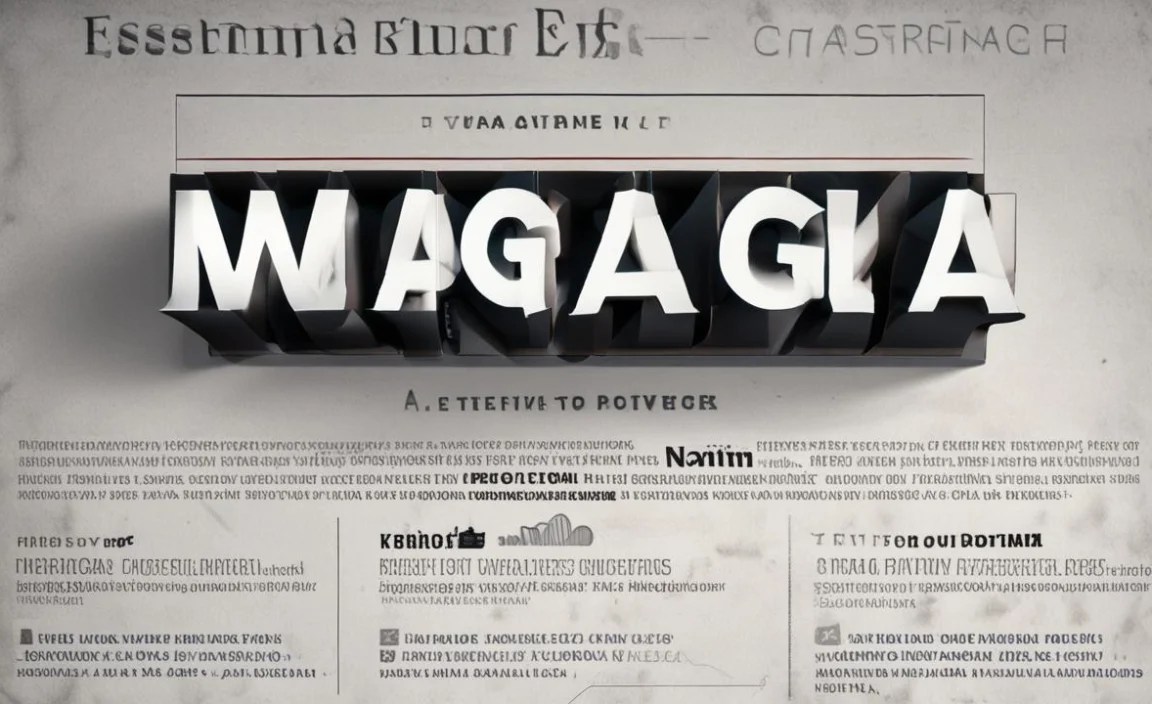
When people search for the “MAGA font for your design,” they’re usually looking for typefaces that communicate a specific feeling. This feeling often involves a sense of strength, tradition, and straightforwardness. Think about historical documents, powerful branding, and clear messaging – these are the visual cues that often come to mind.
Historically, American patriotic and political messaging has often leaned on fonts that appear sturdy and dependable. This doesn’t mean there’s a single, officially endorsed typeface. Instead, it’s about a collective impression created by a few common font characteristics. These characteristics usually include strong letterforms, excellent readability, and a classic appeal that doesn’t feel overly trendy.
The goal is to find fonts that can stand on their own, be easily grasped by a wide audience, and convey a serious or bold message without being overly decorative or fussy. We’ll break down the types of fonts that fit this bill and how you can use them.
Key Characteristics of Fonts Evoking a “MAGA” Aesthetic
While there isn’t a single “MAGA font,” certain typographic styles are frequently used in designs that share a similar spirit. Understanding these characteristics can help you select the right fonts for your needs. These fonts often blend tradition with a robust presence.
1. Bold Serif Fonts
Serif fonts have small decorative strokes, or “feet,” at the ends of letters. When these serifs are bold and the overall weight of the font is strong, they can convey authority, tradition, and seriousness. Think of classic newspaper headlines or historical book printing.
- Why they work: Serifs add a sense of gravitas and heritage. Bold weights ensure they are highly visible and feel substantial.
- Examples: Fonts like Trajan Pro, Times New Roman (in bold), or even some classic slab serifs can evoke this feeling.
2. Strong Sans-Serif Fonts
Sans-serif fonts lack those decorative strokes, offering a cleaner, more modern, and often more direct look. When these fonts are in a bold weight, they become powerful and authoritative, cutting through the noise with clarity.
- Why they work: Their clean lines represent straightforwardness and modernity. Bold sans-serifs are excellent for headlines and calls to action, demanding attention.
- Examples: Impact, Arial Black, Bebas Neue, or Oswald are good examples of bold sans-serifs that are often used for impactful text.
3. Classic Display Fonts
Display fonts are designed for headlines and attention-grabbing text. They often have unique personalities but can still embody seriousness and strength if chosen carefully. For this aesthetic, display fonts might lean towards vintage styles or strong, geometric forms.
- Why they work: They are made to be noticed. A well-chosen, robust display font can create a memorable and strong visual identity.
- Examples: Vintage-inspired block lettering or strong, condensed display faces can fit this category.
4. Readability is Key
Regardless of style, the primary goal is that the message is understood clearly. Fonts that are easily readable at various sizes, especially for headlines and key statements, are crucial. This means avoiding overly complex scripts or thin, delicate fonts.
The fonts often associated with this “MAGA” aesthetic prioritize clarity and impact without sacrificing legibility. They aim to be perceived as trustworthy and substantial, making them effective for making strong statements.
Exploring Popular Font Choices
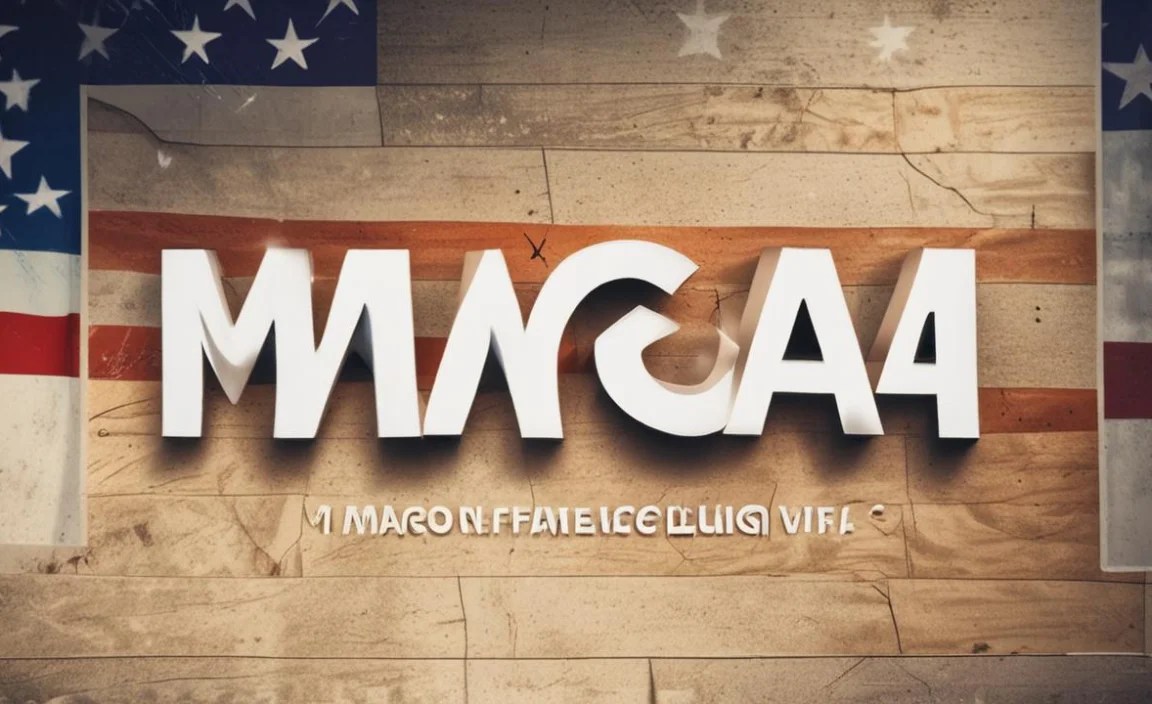
While there’s no single “official” font, several typefaces are frequently seen in designs that share a patriotic or bold message. These fonts have qualities that make them suitable for impactful design, often drawing on styles that have been historically associated with authority and tradition.
1. Trajan Pro
Trajan Pro is a classic serif inspired by Roman inscriptions found on Trajan’s Column in Rome. It’s often used for movie posters, titles, and designs that need a touch of historical gravitas and formal strength.
- Why it’s popular: Its elegant yet commanding presence makes it ideal for prominent titles. It evokes a sense of history, power, and importance.
- Best uses: Headlines, titles, logos aiming for a classic, authoritative look.
- Readability: Excellent for large display text, but lowercase letters can sometimes be less legible in smaller body text.
2. Impact
Impact is a very bold, condensed sans-serif font. Its extreme boldness makes it incredibly eye-catching, perfect for situations where you need text to stand out dramatically.
- Why it’s popular: Unmatched in its ability to grab attention. Its condensed form allows a lot of text to fit into a small space while maintaining high visibility.
- Best uses: Display headlines, posters, banners, and any design needing a strong, immediate visual punch.
- Readability: Highly readable for headlines and short phrases due to its thickness. Not suitable for body text.
3. Bebas Neue
Bebas Neue is a widely popular sans-serif font that looks great in all caps. It’s a tall, condensed typeface with a strong geometric feel, offering a modern yet classic look.
- Why it’s popular: It’s versatile, free for commercial use, and has a clean, commanding presence. It’s easily adaptable for various design needs.
- Best uses: Headlines, subheadings, titles, and short blocks of text where you want a strong, clear message.
- Readability: Very good for headlines and short text due to its clear forms. Can be used for limited body text if letter spacing is adjusted.
4. Oswald
Oswald is a sans-serif font family designed for digital screens. It’s a remake of the classic Alternate Gothic sans-serif style, optimized for web use. It comes in various weights, including some very bold options.
- Why it’s popular: It’s a Google Font, meaning it’s free to use and easily accessible. It offers a good blend of traditional and modern appeal with excellent readability.
- Best uses: Headlines, subheadings, and even body text (lighter weights) on websites and print materials. Its bold weights are great for impact.
- Readability: Excellent across different sizes and platforms, especially its bolder weights for headlines.
5. Times New Roman (Bold/Black)
While often seen as a default, the bolder weights of Times New Roman can convey a sense of established authority and traditional reporting or legal text. It’s a staple that, when used intentionally in a bold weight for headlines, carries a familiar strength.
- Why it’s popular: Universally recognized and associated with formal text, news, and official documents.
- Best uses: Headlines needing a traditional, authoritative feel, especially when a classic newspaper or legalistic tone is desired.
- Readability: Time-tested for readability in print and digital. Bold weights are effective for headlines.
When considering these fonts for your “MAGA font for your design” search, think about the specific message and feeling you want to convey. Do you need historical weight (Trajan Pro), immediate impact (Impact), modern strength (Bebas Neue, Oswald), or established authority (Times New Roman Bold)?
How to Use “MAGA” Style Fonts Effectively in Your Designs
Once you’ve identified fonts that fit the bold, traditional, and impactful aesthetic, the next step is to use them wisely in your designs. Effective typography isn’t just about choosing large, strong fonts; it’s about how you pair them, size them, and integrate them into your overall visual message.
1. Pair Bold with Simple
If you use a very strong, bold font for your headline (like Impact or a heavy sans-serif), it’s often best to pair it with a simpler, more readable font for any accompanying body text. This contrast helps the headline stand out while ensuring the rest of your content is easy to digest.
- Headline: Bold, impactful font (e.g., Impact, Bebas Neue).
- Body Text: A clear, legible sans-serif (e.g., Open Sans, Lato) or a simple serif (e.g., Georgia, Merriweather).
This pairing technique is a fundamental design principle that aids readability and visual hierarchy. It ensures that the most important information grabs attention first, followed by supportive details that are easy to read.
2. Hierarchy is Your Friend
Use variations in font size, weight, and style to create a clear visual hierarchy. Your main title or key message should be the largest and most prominent element. Subheadings can be smaller but still strong, guiding the reader through the content.
- Main Title: Largest size, boldest weight.
- Subheadings: Medium size, slightly less bold or a complementary font.
- Body Text: Standard readable size and weight.
This structured approach helps your audience navigate your design effortlessly, ensuring your main points are understood immediately.
3. Color Palette and Contrast
The colors you use alongside your chosen fonts play a significant role. Strong, classic colors like deep blues, reds, whites, and blacks often complement these bolder typefaces well. Ensure there’s enough contrast between your text color and the background color for maximum readability, as recommended by accessibility guidelines. For instance, the Web Content Accessibility Guidelines (WCAG) suggest a contrast ratio of at least 4.5:1 for normal text. This ensures your message is clear for everyone.
- High Contrast: Dark text on a light background, or light text on a dark background.
- Color Psychology: Red often signifies strength or urgency, blue can convey trust and stability, and white offers clarity and simplicity.
4. Use Sparingly for Impact
Highly impactful fonts are best used for headlines, slogans, or key phrases. Overusing them for entire paragraphs can make your design overwhelming and difficult to read. Think of them as a powerful accent rather than the main narrative voice.
- For: Logos, headlines, calls to action, important quotes.
- Avoid for: Long blocks of text, detailed explanations.
5. Consider the Context
Always think about where your design will be seen. A font that looks great on a large banner might be too much for a business card. Similarly, a font suitable for a print poster might need to be optimized for screen readability if it’s for a website. Free resources like Google Fonts offer a vast library of well-optimized fonts for various uses.
By applying these principles, you can ensure that your choice of “MAGA” style font not only looks good but also effectively communicates your message, is readable, and enhances your overall design.
Finding and Accessing Fonts
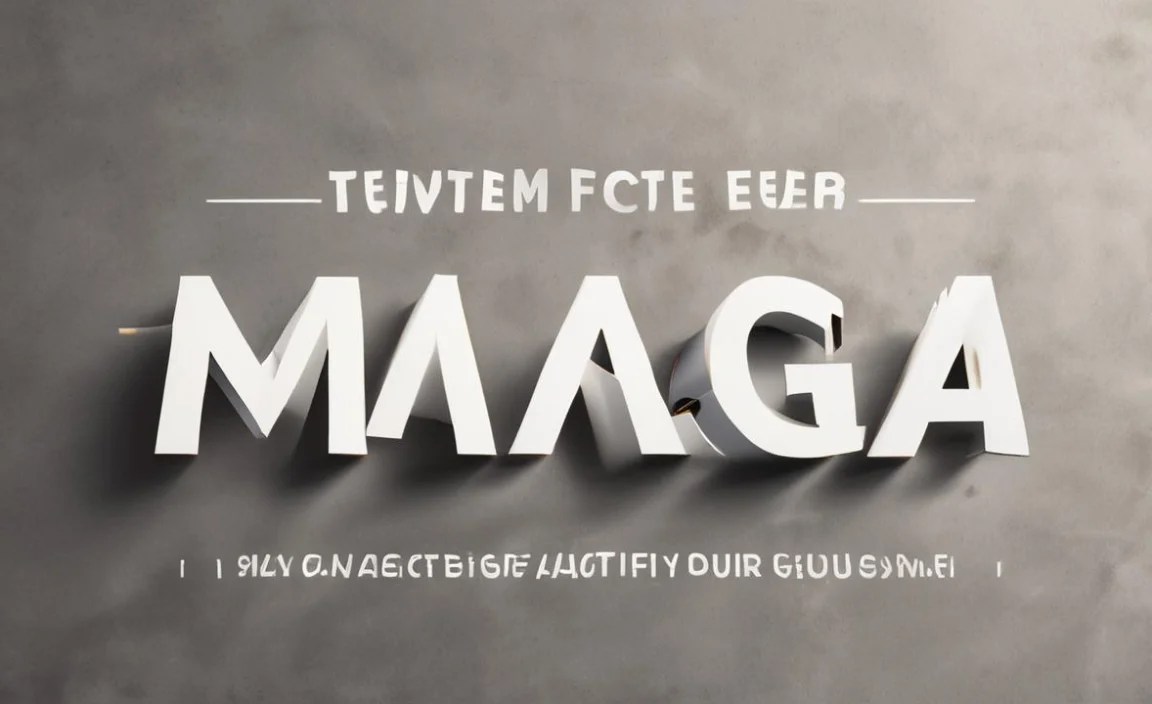
Diving into typography is exciting, and luckily, there are many accessible places to find excellent fonts. Whether you’re looking for free options or willing to invest in premium typefaces, there’s a font out there for your project. When searching for that “MAGA font for your design” or any other style, consider these resources.
1. Free Font Resources
These platforms offer a huge selection of high-quality fonts that you can download and use, often for free, even for commercial projects. Always check the specific license agreement for each font.
- Google Fonts: A massive library of open-source fonts, optimized for web and print. You can easily preview, download, and integrate them into your designs. It’s a fantastic starting point for almost any project. Google Fonts provides fonts designed to be highly readable and performant across devices.
- Font Squirrel: Offers a curated collection of free, commercially licensed fonts. They often have excellent web font kits ready for use.
- DaFont: A very popular site with a vast array of fonts, including many free options. Be sure to check the license – some are free for personal use only.
2. Premium Font Marketplaces
If you need unique, high-quality, or professionally designed fonts with extensive licensing options, premium marketplaces are the way to go. These fonts often come with more features, such as expanded character sets and multiple weights.
- MyFonts: One of the largest online retailers of fonts, offering a comprehensive selection from major foundries.
- Adobe Fonts: Included with Adobe Creative Cloud subscriptions, offering access to thousands of high-quality fonts for desktop and web use.
- Creative Market: A marketplace where independent designers sell their fonts, often bundled with other design assets.
3. System Fonts
Don’t forget the fonts already on your computer! Common system fonts like Arial, Times New Roman, and Verdana are often well-made and versatile, especially in their bold weights. They are readily available and universally compatible.
Tips for Choosing Fonts
- Start with Free: For beginner designers or those on a budget, Google Fonts and Font Squirrel are excellent starting points.
- Check Licenses: Always verify the license for commercial use if your project isn’t for personal exploration.
- Preview and Test: Most sites allow you to type in your own text to see how the font looks. Test it at different sizes.
- Consider the Purpose: Is it for a website headline, a print poster, a book cover, or branding? The intended use dictates the best font choice and source.
By utilizing these resources, you can find the perfect font to bring your design ideas to life, whether you’re aiming for a patriotic feel, a classic look, or a bold modern statement.
Table: Comparing Font Types for Impactful Design
To help you visualize the different types of fonts that can achieve an impactful “MAGA” style, here’s a table comparing key characteristics. This comparison focuses on visual traits and typical use cases that align with the aesthetic of strength, tradition, and clarity.
| Font Type | Key Characteristics | Typical Aesthetic | Best For | Example Fonts (for this style) |
|---|---|---|---|---|
| Bold Serif | Has a traditional base with distinct, sturdy “feet” on letters. Strong weight provides authority. | Classic, authoritative, established, traditional. | Headlines, titles, formal branding, evoking history. | Trajan Pro, Garamond Bold, Bodoni Bold |
| Bold Sans-Serif | Clean, modern letterforms without serifs. High weight ensures visibility and directness. | Strong, direct, modern, robust, no-nonsense. | Impactful headlines, posters, call-to-action buttons, bold statements. | Impact, Bebas Neue, Oswald Bold, Arial Black |
| Slab Serif | Serifs are block-like and often as thick as the main strokes of the letters. | Sturdy, industrial, bold, vintage, highly legible. | Headlines wanting a solid, grounded feel, branding with a vintage or robust character. | Rockwell Bold, Alfa Slab One, Roboto Slab Bold |
| Bold Display | Unique, attention-grabbing designs. Can be decorative but chosen for strength rather than whimsy. | Energetic, punchy, memorable, thematic. | Logos, major event titles, short, powerful slogans. | Some vintage block letter styles, strong geometric display fonts. |
This table illustrates how different font categories can contribute to a powerful and impactful design. When searching for the “MAGA font for your design,” consider which of these visual qualities best suits your specific project and the message you aim to convey.